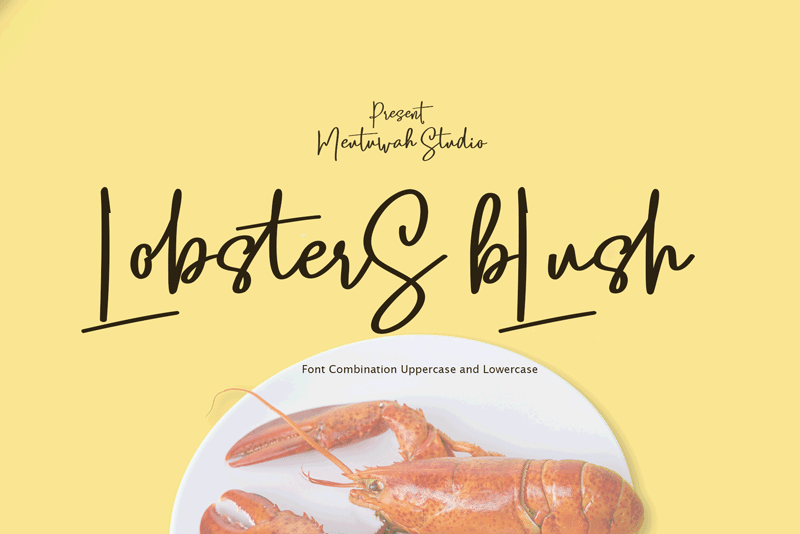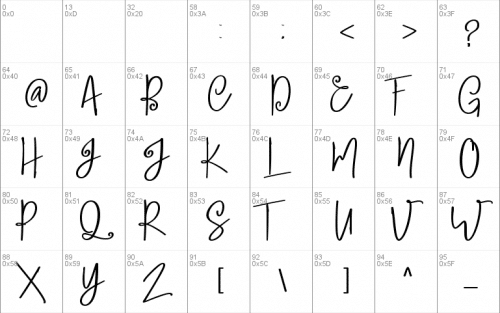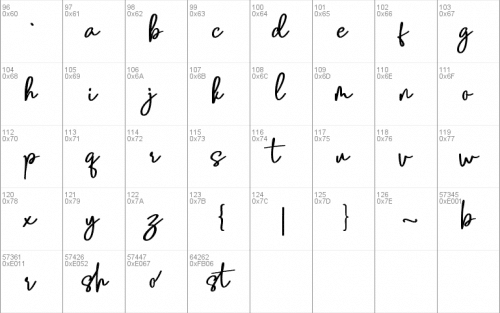
The Lobster is a modern font. Its bold and slant style is combining a classic calligraphy style with a modern style.
Perfect for adding an unique, striking look to your designs!